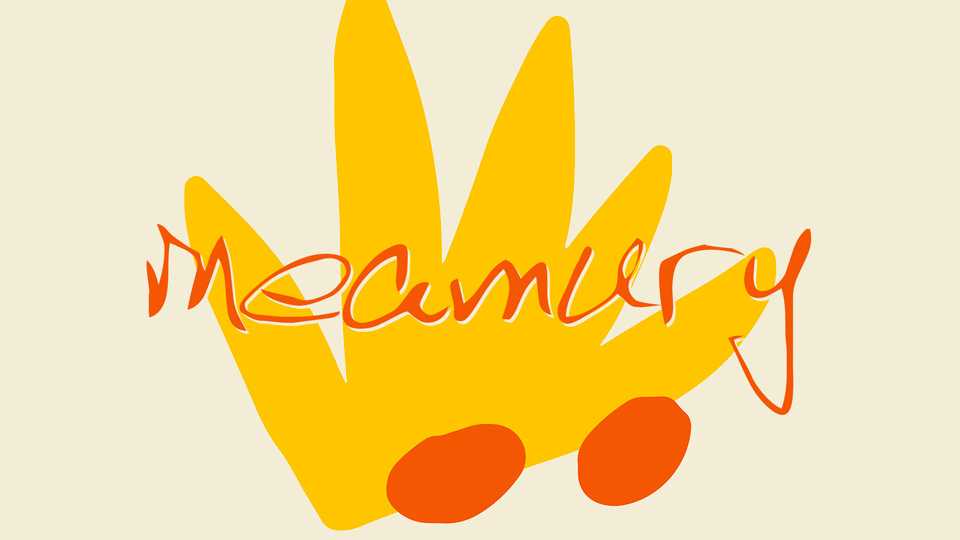
Download Meamury font, a simple casual handwritten typeface with a natural look for Latin and Cyrillic. Meamury font is suitable for notes, quotes, social media and other unformal use.